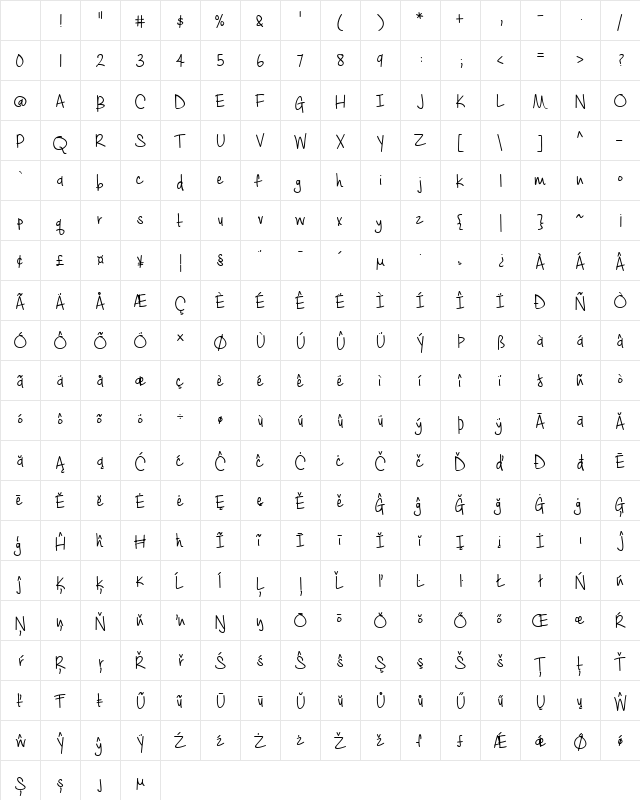
Complete Cashew Apple Ale Regular glyph index. Displaying only characters natively supported by Cashew Apple Ale Regular font.
Cashew Apple Ale is a composed and adaptable typeface that performs quietly and consistently across a wide range of design contexts.